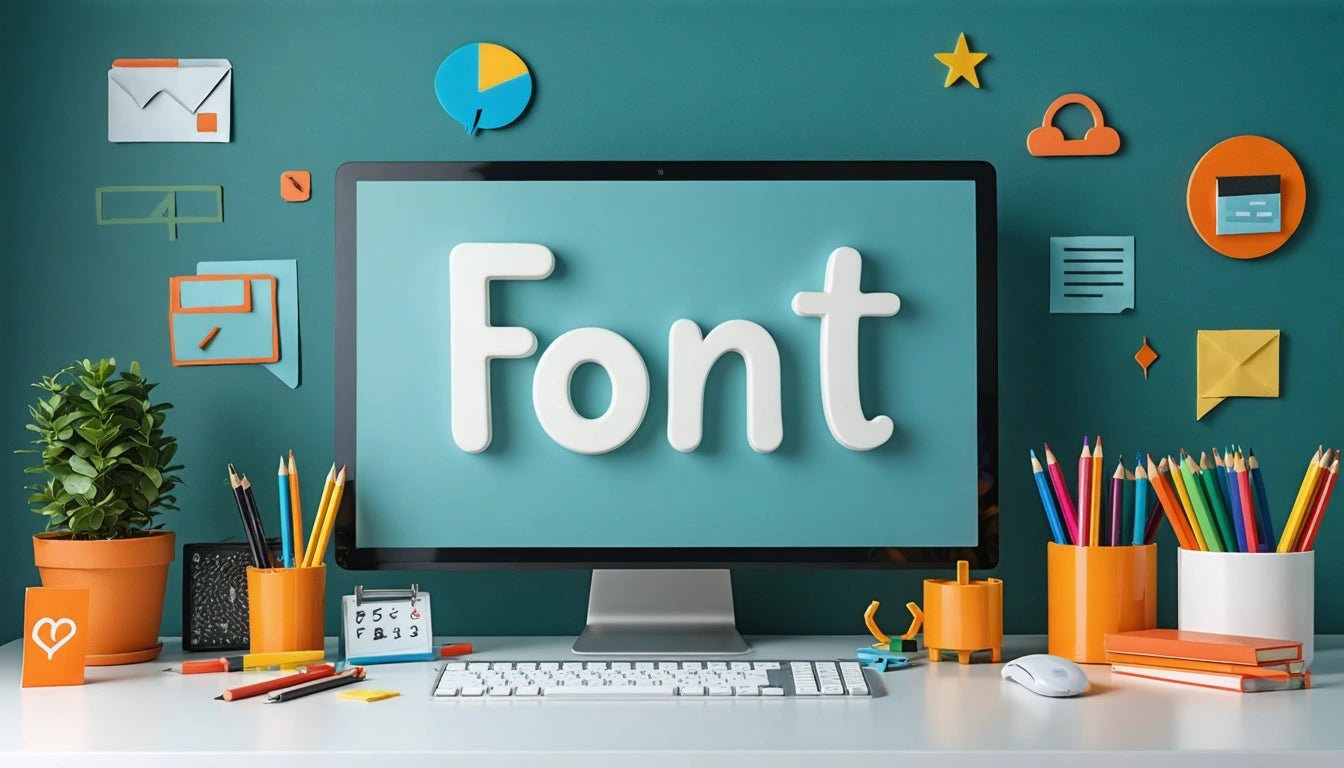
Understanding Fonts: Definitions, Examples, and Popular Choices
Typography plays a crucial role in visual communication, and understanding fonts is essential for effective design. But what exactly is a font? Many people ask questions like "what does font mean" or "what's a font" without realizing how fundamental these digital assets are to everyday communication. This comprehensive guide will explain font definitions, categories, and popular choices to help you make informed typography decisions.
What is Font? Basic Definition and Meaning
The meaning of font in computer terminology refers to a complete set of characters in a specific style and size. Fonts include letters, numbers, punctuation marks, and symbols that share consistent visual properties. The word "font" originated from the French word "fonte," referring to the process of casting metal type.
When people ask "what's font" or "whats a font," they're typically referring to the visual appearance of text in digital or print media. Each font has unique characteristics that convey different moods, tones, and personalities. Understanding these nuances helps designers select appropriate typography for specific projects.
Types of Fonts: Categories and Classifications
Fonts are typically classified into several major categories, each with distinct characteristics and uses:
Serif Fonts
Serif fonts feature small decorative lines (serifs) at the end of character strokes. Examples include Times New Roman, Georgia, and Baskerville. These fonts convey tradition, reliability, and formality, making them suitable for printed materials like books, newspapers, and academic documents.
Sans Serif Fonts
"Sans" means "without" in French, so sans serif fonts lack the decorative lines found in serif typefaces. As explained in this guide on sans serif typography, these fonts project a modern, clean, and minimalist aesthetic. Popular examples include Arial, Helvetica, and Calibri.
Script Fonts
Script fonts mimic handwriting or calligraphy. They range from formal (like Copperplate) to casual (like Comic Sans). These fonts add personality and are often used for invitations, greeting cards, and creative projects. This collection of handwriting fonts showcases various styles available for different projects.
Popular Font Choices and Their Applications
When discussing what fonts are popular, several standouts deserve mention:
- Helvetica: A versatile sans serif font used by many major brands
- Times New Roman: The standard for academic and professional documents
- Futura: A geometric sans serif popular in modern design
- Garamond: An elegant serif font with excellent readability
- Roboto: Google's signature font designed for screen readability
Many people ask specific questions like "what font is Off White using" or "what is the Facebook font." Off White typically uses Helvetica Bold Italic, while Facebook's primary font is a custom typeface called Facebook Clearer. These brand-specific fonts contribute significantly to brand recognition and identity.
Selecting the Right Font for Your Project
Choosing appropriate fonts involves considering several factors:
Readability and Legibility
The primary purpose of typography is communication. Fonts must be easily readable at intended sizes and contexts. For example, packaging design requires careful font selection to ensure important information remains legible. Safety information on packaging must be particularly clear, as regulatory standards for consumer products demand legibility even in specialized contexts like child-resistant packaging.
Brand Personality
Fonts communicate personality traits. Serif fonts often convey tradition and reliability, while sans serif fonts project modernity and simplicity. Script fonts add personal touches, and display fonts create visual impact. This article on choosing perfect fonts explores how typography affects brand perception.
Context and Medium
Different media require different font considerations. Print materials, websites, mobile applications, and product packaging each have unique requirements for optimal typography. Screen-optimized fonts like Verdana perform better in digital environments, while certain serif fonts remain more readable in print.
Font Evolution and Emerging Typography Trends
Typography continues to evolve with technology and design preferences. Variable fonts represent a significant advancement, allowing a single font file to behave like multiple fonts by adjusting weight, width, and other attributes dynamically. This technology enables more responsive and adaptable typography across devices.
Custom typography is also gaining prominence as brands seek unique visual identities. Rather than asking "is Perfect a font" or "is Town a font," companies increasingly develop proprietary typefaces that exclusively represent their brand voice.
Understanding what fonts are and how they function in various contexts empowers designers and content creators to make informed typographic choices. Whether selecting fonts for digital interfaces, print materials, or brand identity systems, typography remains a powerful tool for effective visual communication.